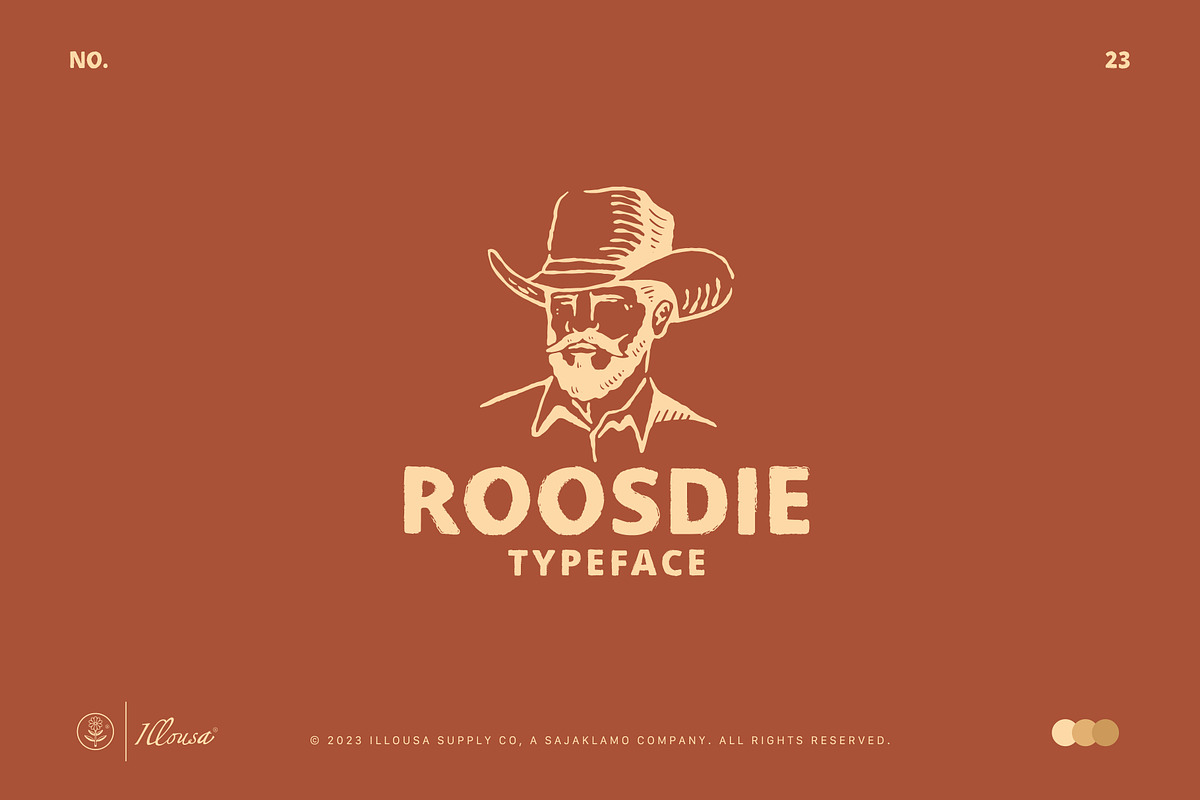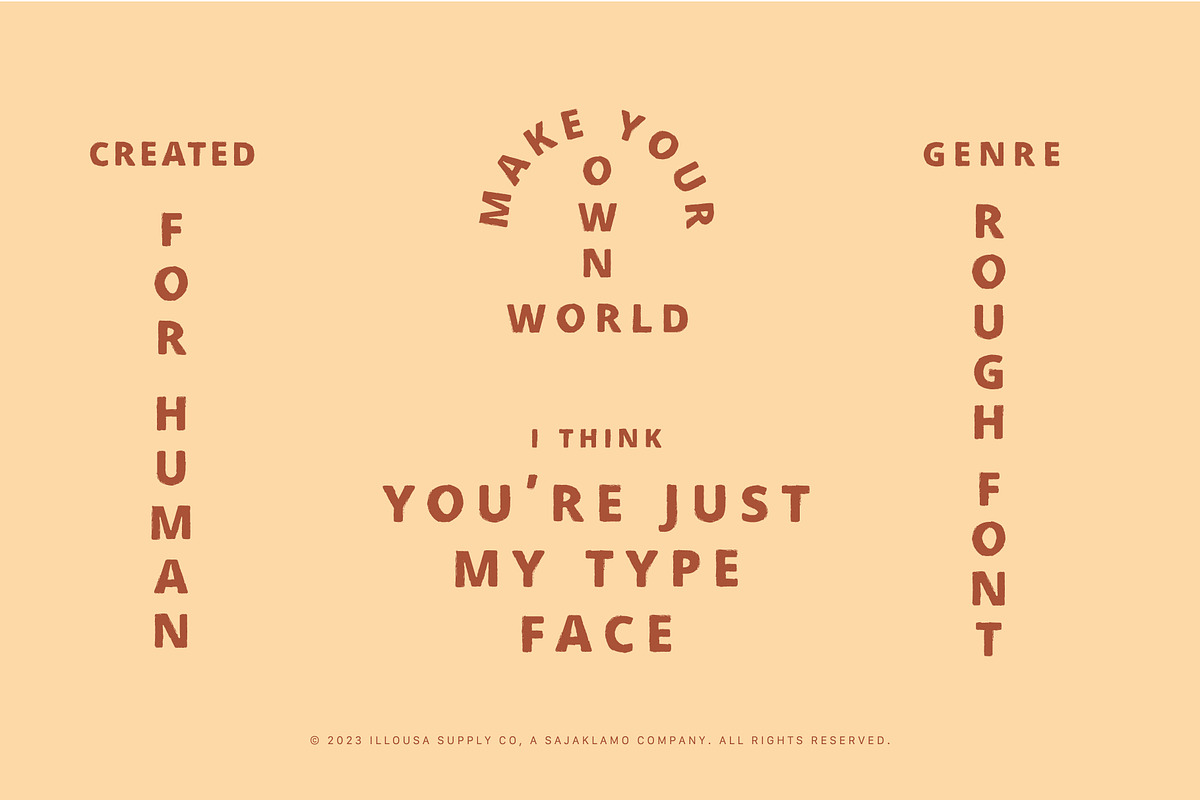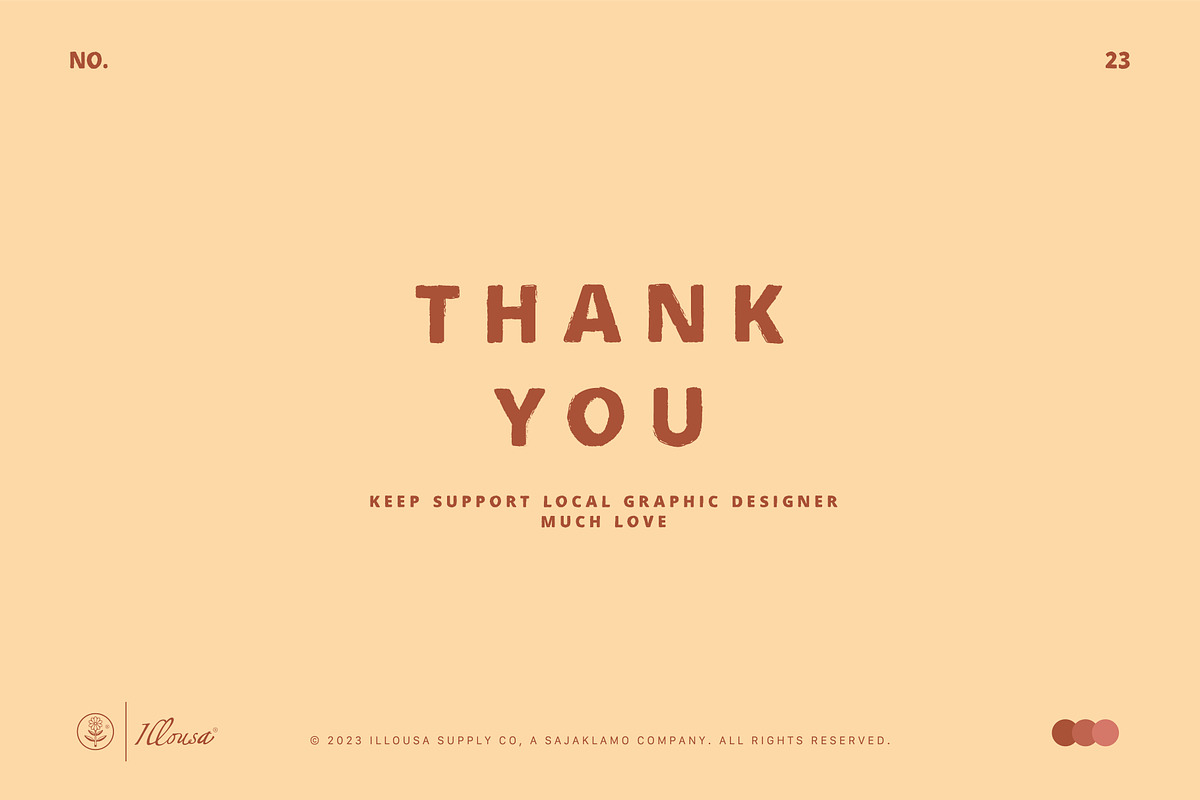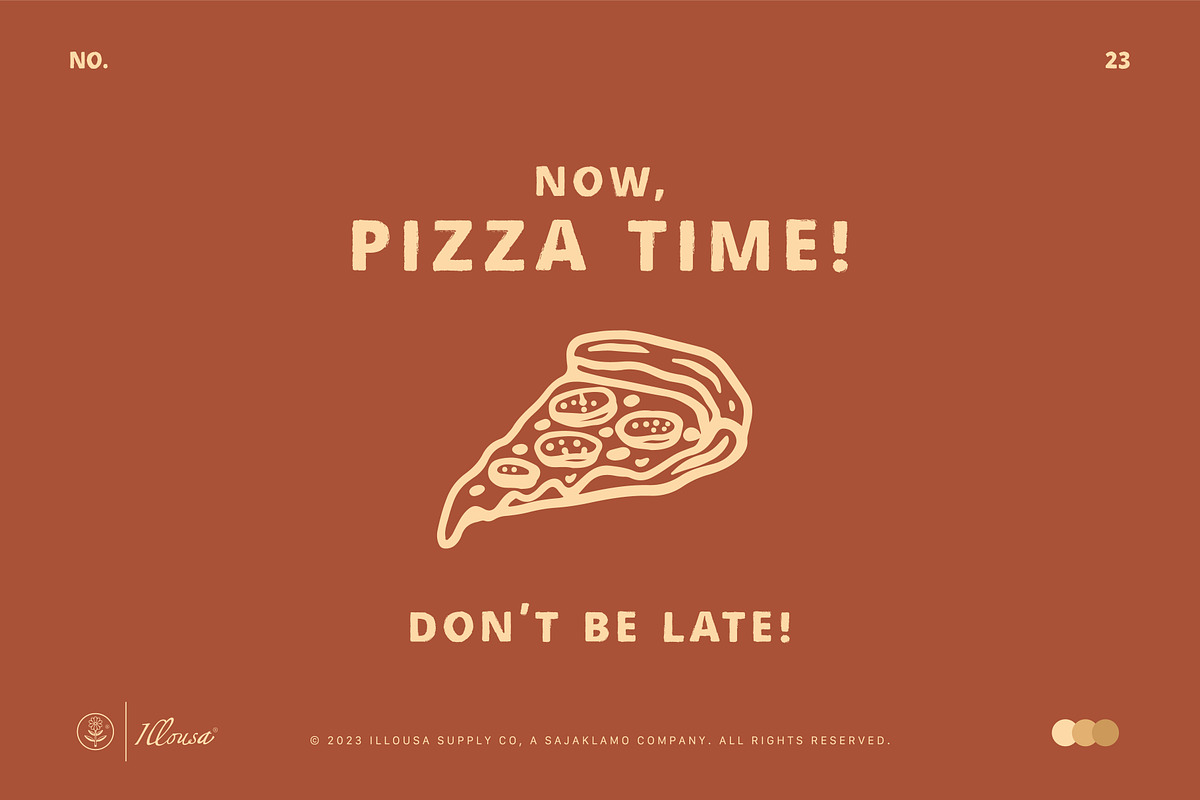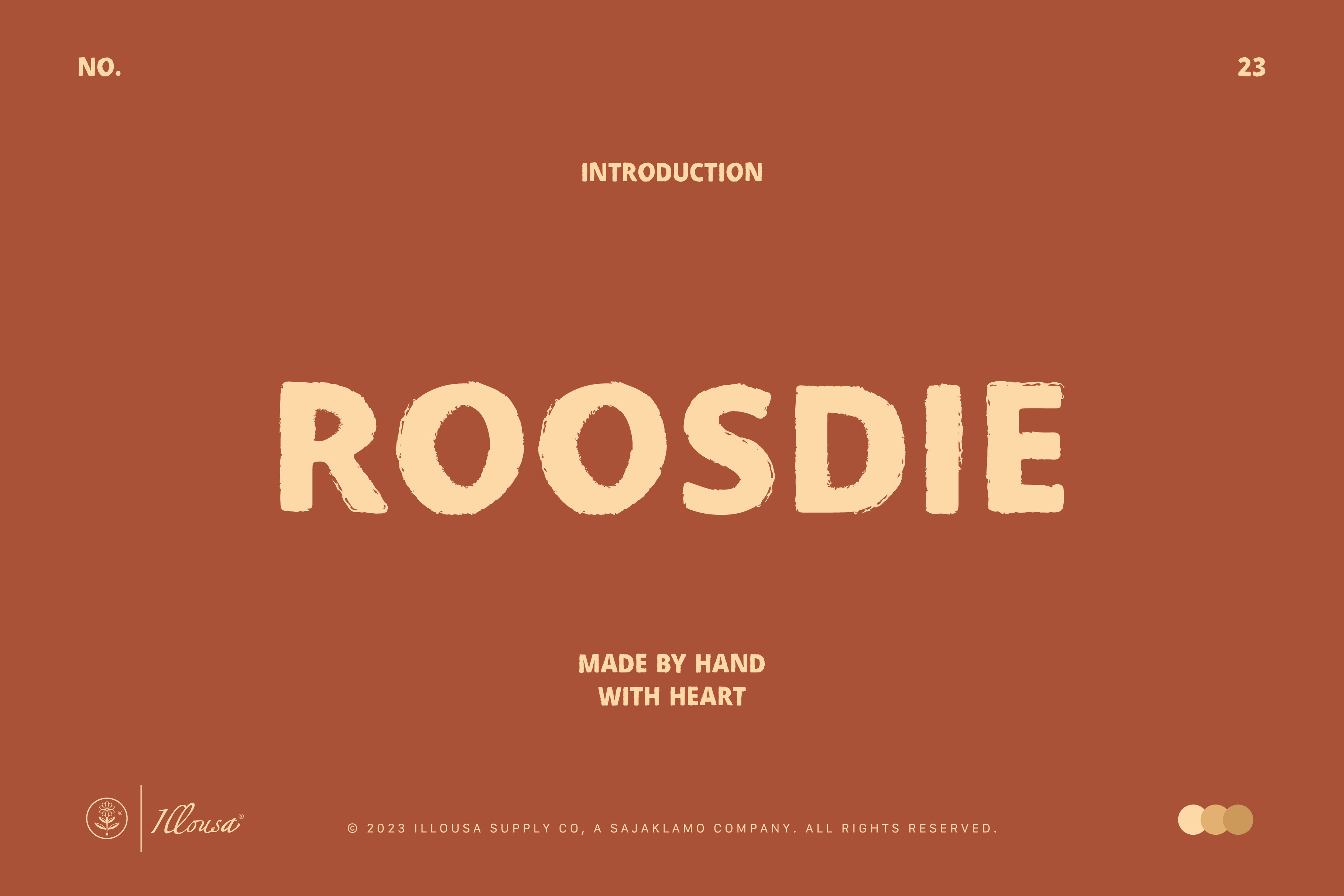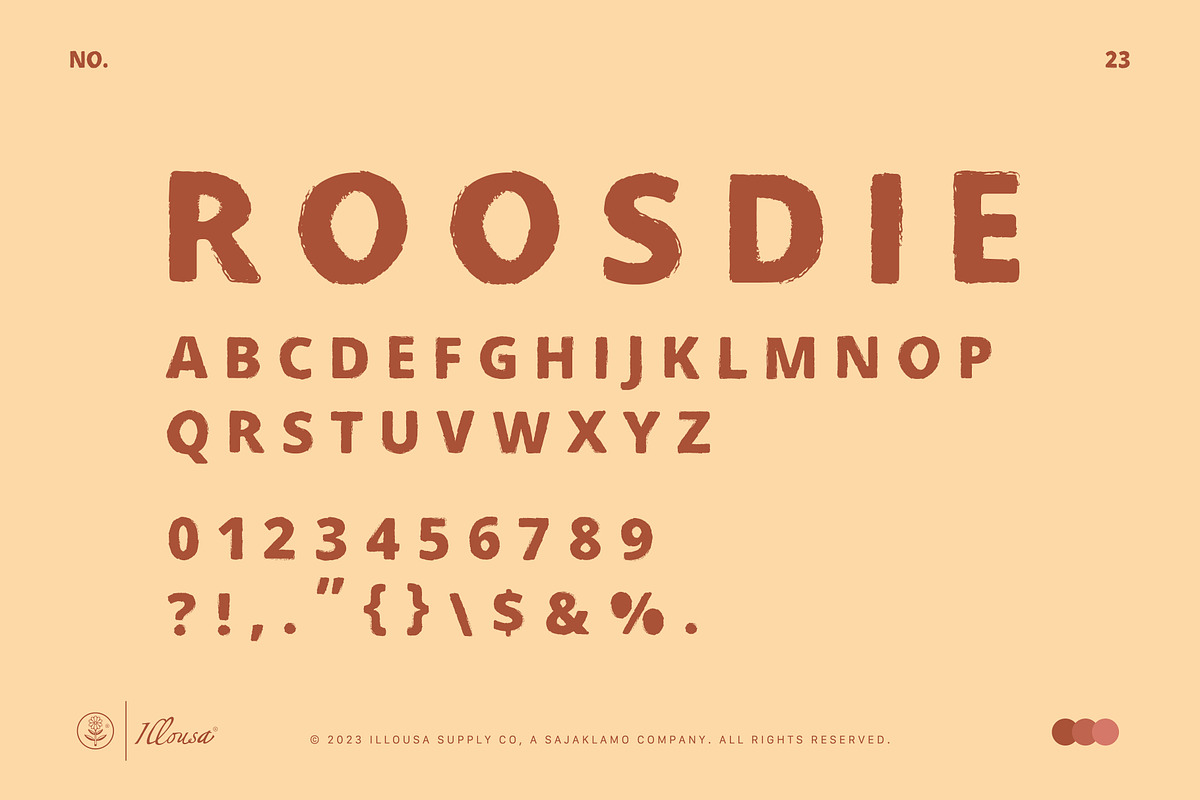
Roosdie Typeface | Vintage Font
INTRODUCTION
ROOSDIE TYPEFACE ( Sans Serif / Rough Font ) Roosdie is a typeface made by hand drawing and dirty looks. Contains all uppercase, numbers 0-9, and basic punctuation.